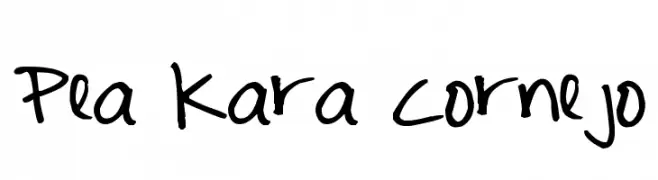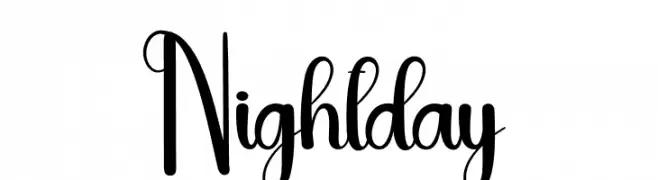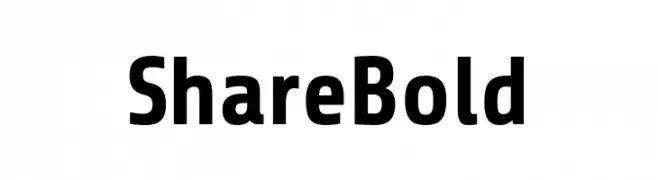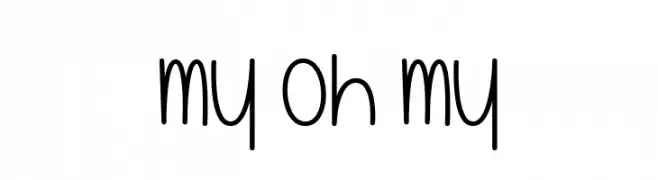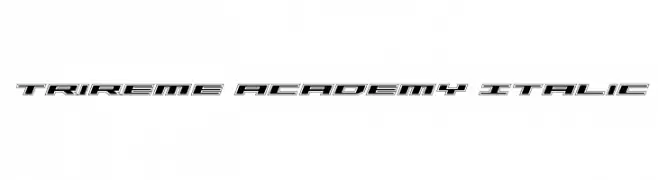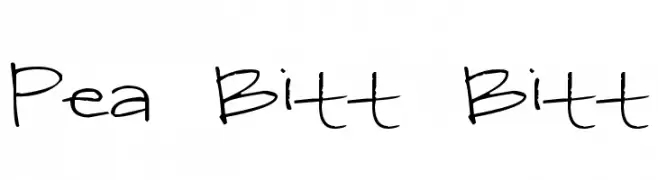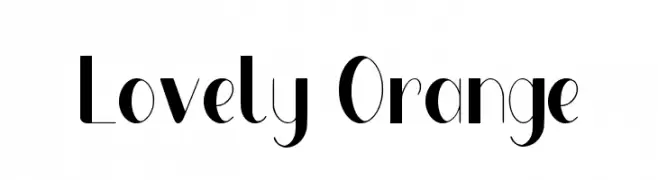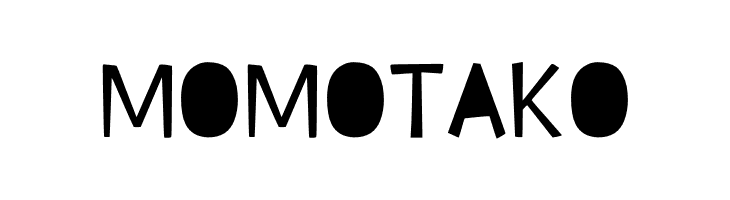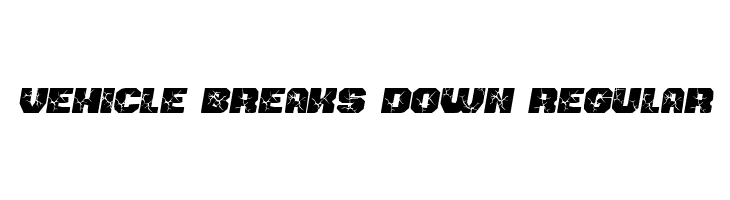
A playful, casual handwritten font with dynamic strokes and a personal touch.
A bold, rounded font with a strong, uniform presence.
( Fonts by Andi Moz )
A modern, elegant font with tall uppercase and cursive lowercase letters.
( Fonts by Carrois Type Design / Ralph du Carrois )
A bold, modern sans-serif font with clean and consistent letterforms.
A playful, hand-drawn font with rounded, elongated characters.
( Fonts by weknow - Wino S Kadir )
A bold, playful font with rounded edges and a geometric, modern style.
( 010Bus )
A pixelated, monospaced font with a retro digital aesthetic.
A futuristic, italicized font with bold, angular letterforms.
A playful handwritten font with a casual and friendly vibe.
A modern-vintage font with elegant curves and sharp edges, ideal for sophisticated designs.